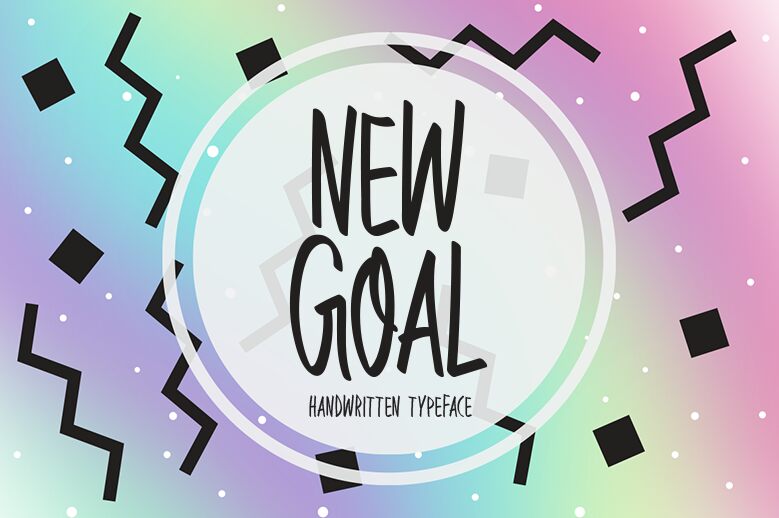
New Goal, designed by Md Shohail Bhuian of Seemly Fonts, is a striking handwritten font that exudes personality and charm. Its condensed form captures attention effortlessly, offering a playful yet elegant appearance that feels both personal and inviting. The fluid lines and unique character formations enhance its aesthetic appeal, making it an excellent choice for crafting authentic and engaging designs.
This font's distinct style shines in various contexts-perfect for branding projects, invitations, or social media graphics where a touch of whimsy is desirable. Its lively nature balances clarity with creativity, ensuring messages are conveyed with warmth and style. New Goal transforms ordinary text into memorable statements, making it an ideal canvas for expressive ideas across multiple design landscapes.